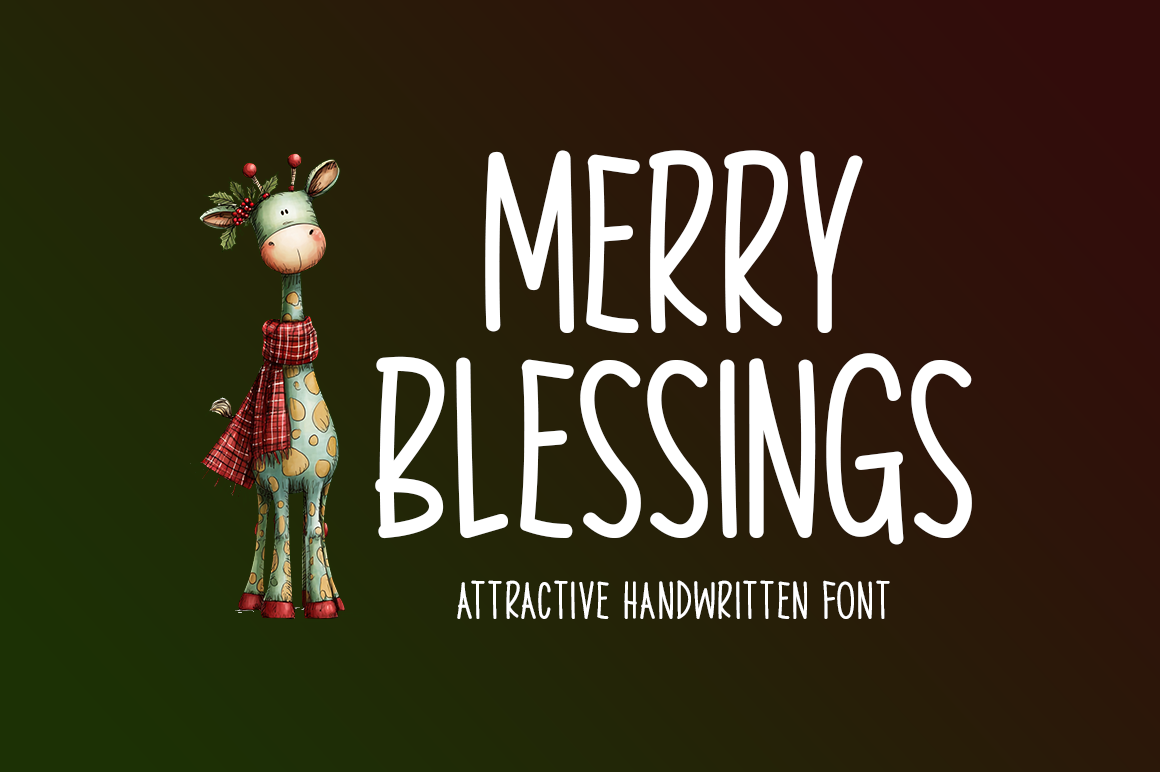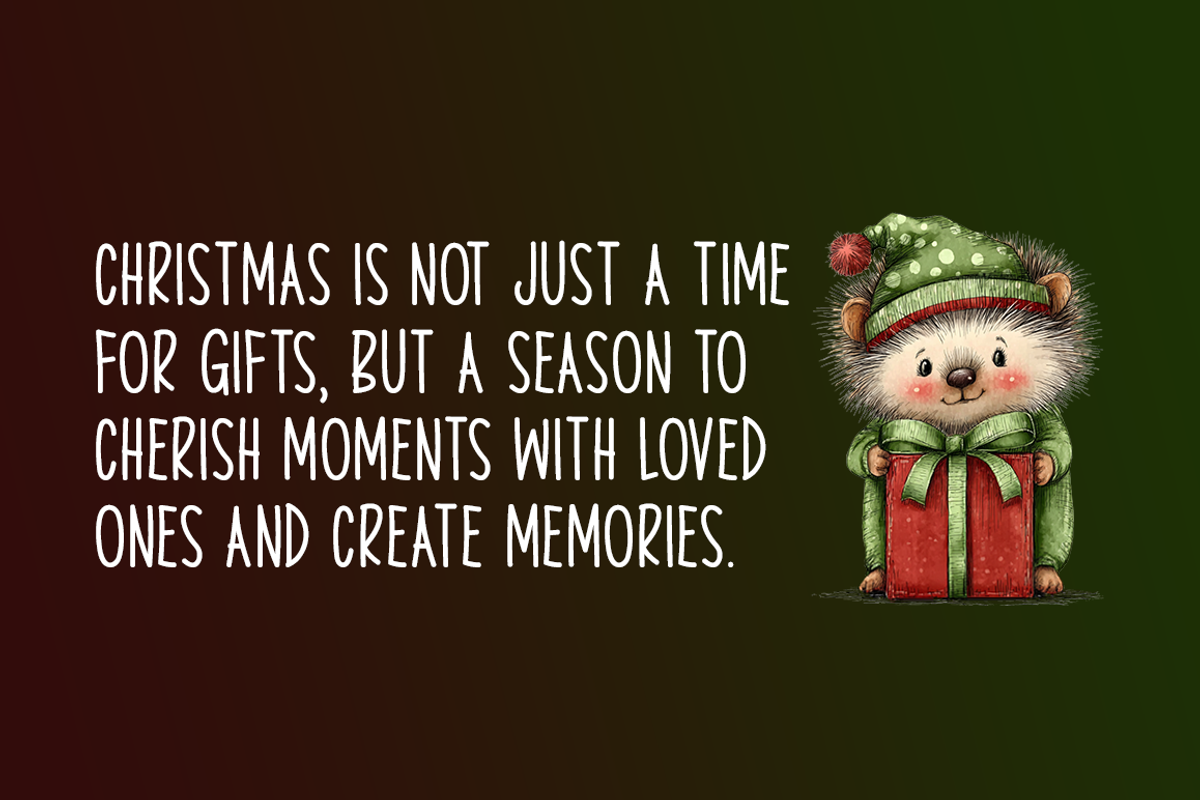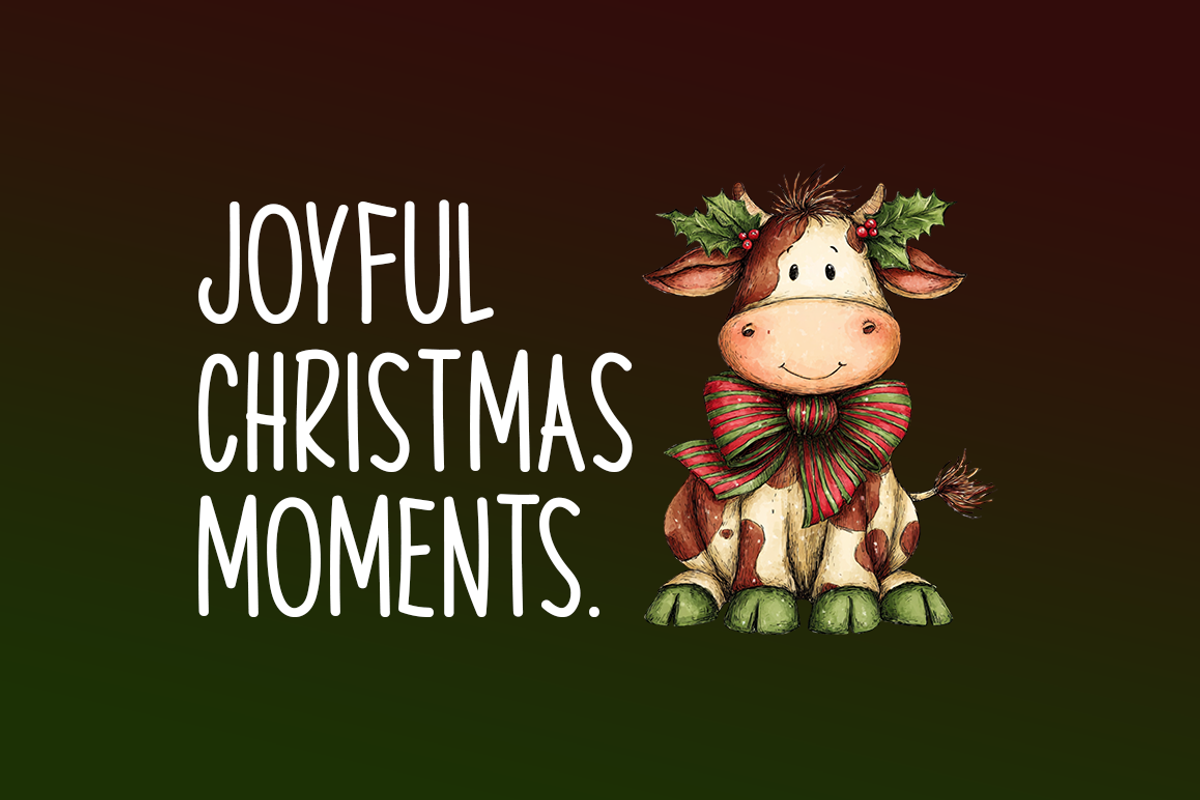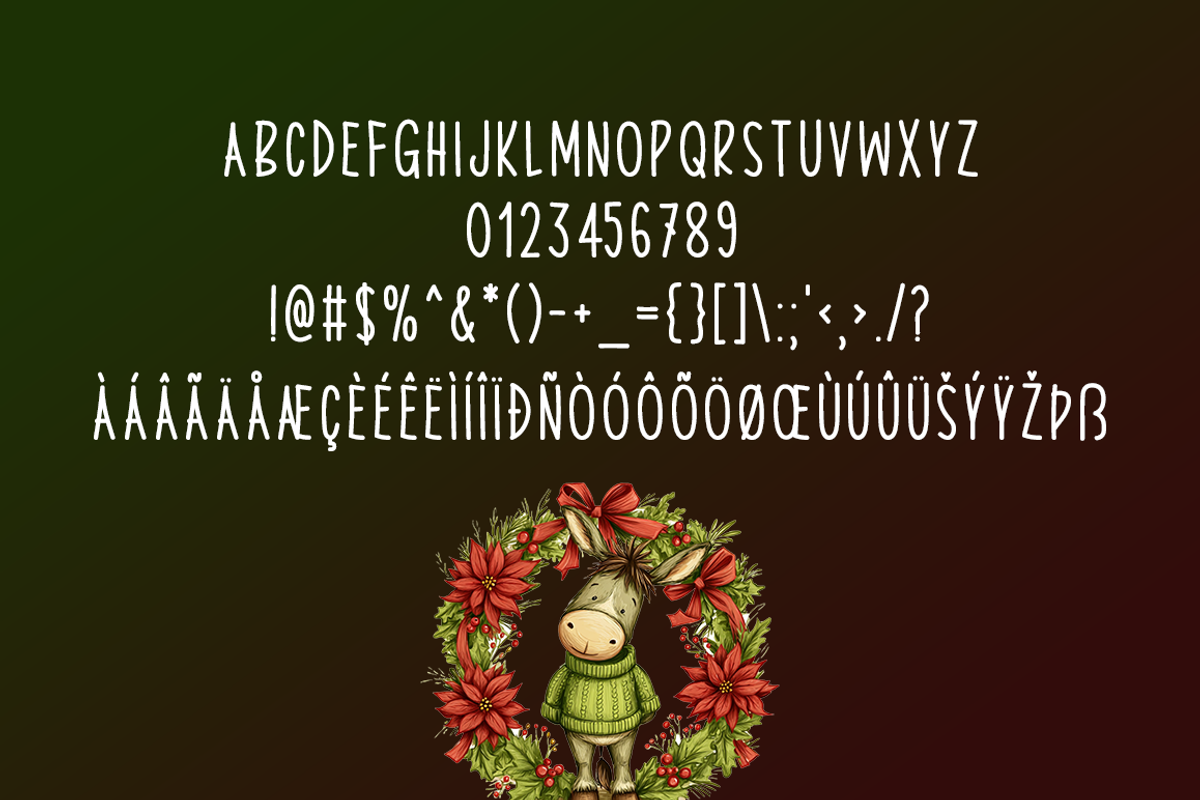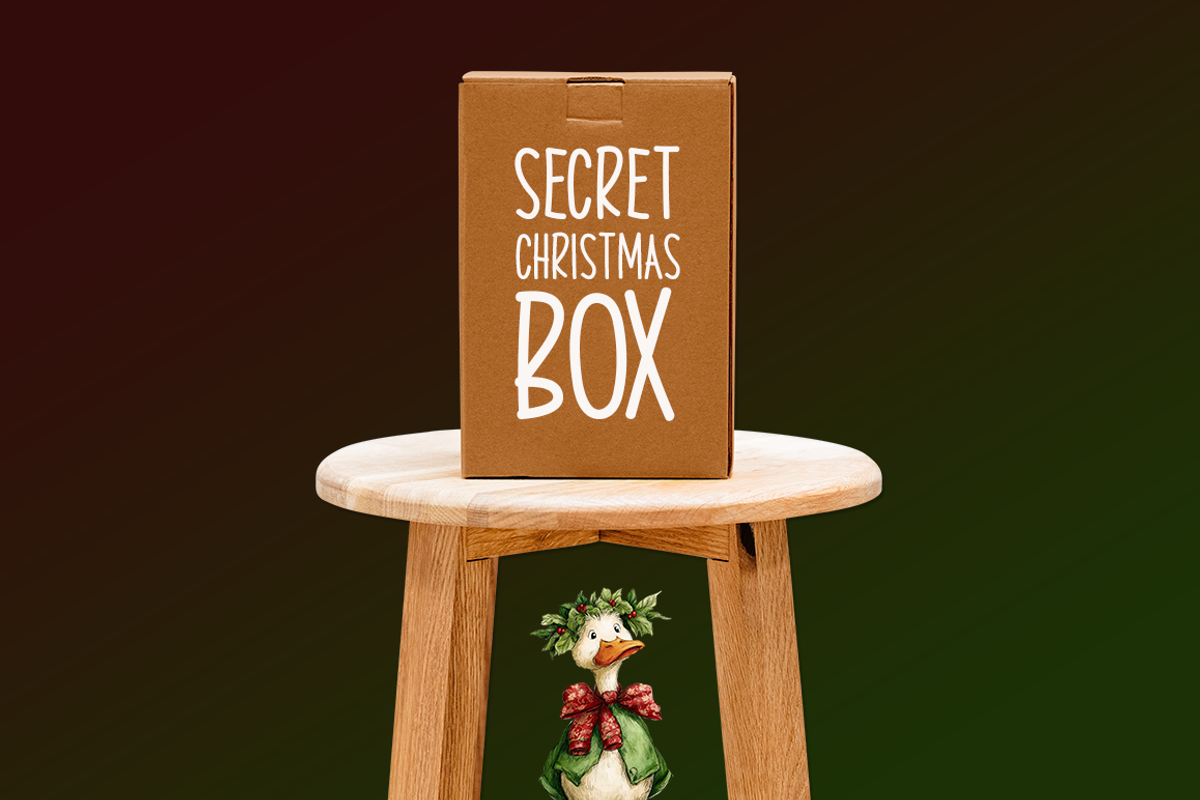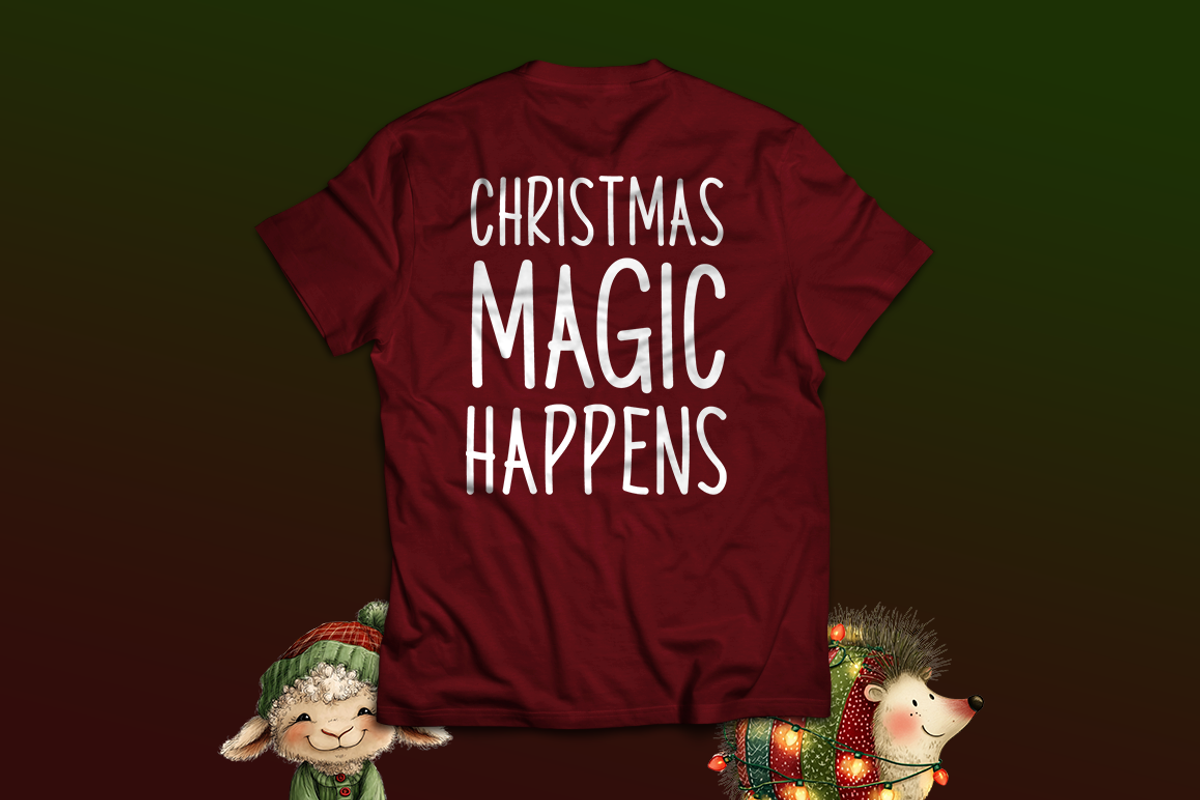
Merry Blessings Typeface
Introducing Merry Blessings!
Merry Blessings is a pretty and charming handwritten Christmas font filled with warmth, joy, and festive spirit. Its graceful letterforms and playful style bring a cozy, cheerful touch to every design. Perfect for Christmas cards, holiday invitations, gift tags, greeting cards, social media posts, stickers, quotes, crafts, and seasonal branding. Whether creating something sweet, elegant, or joyful, Merry Blessings adds a beautiful festive character that makes every Christmas project feel extra special and memorable.